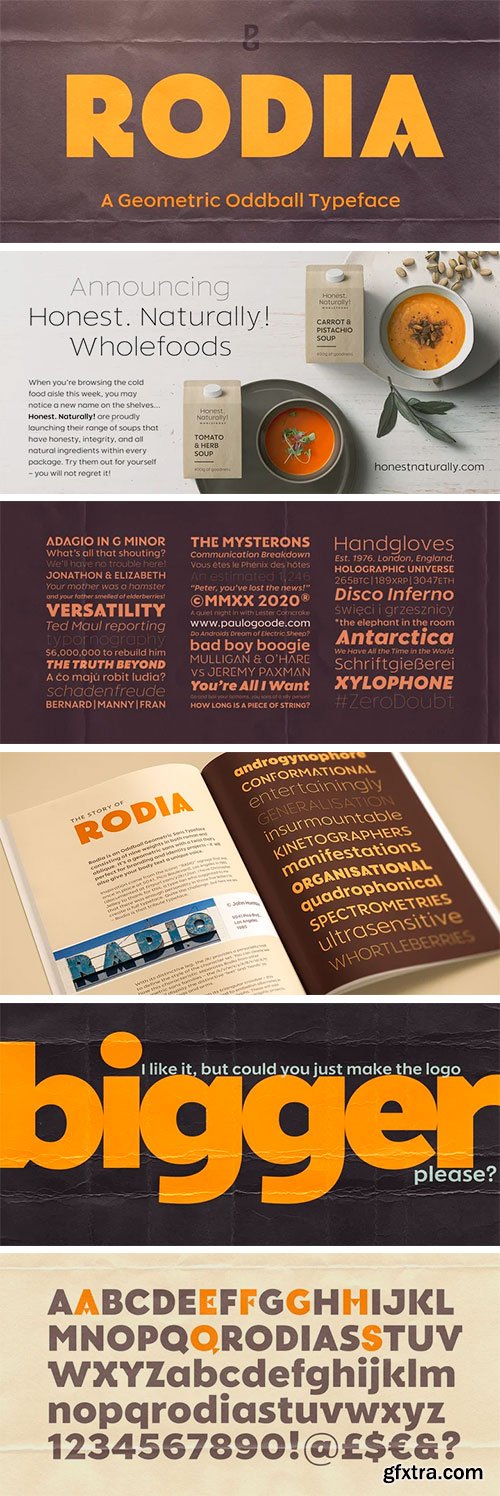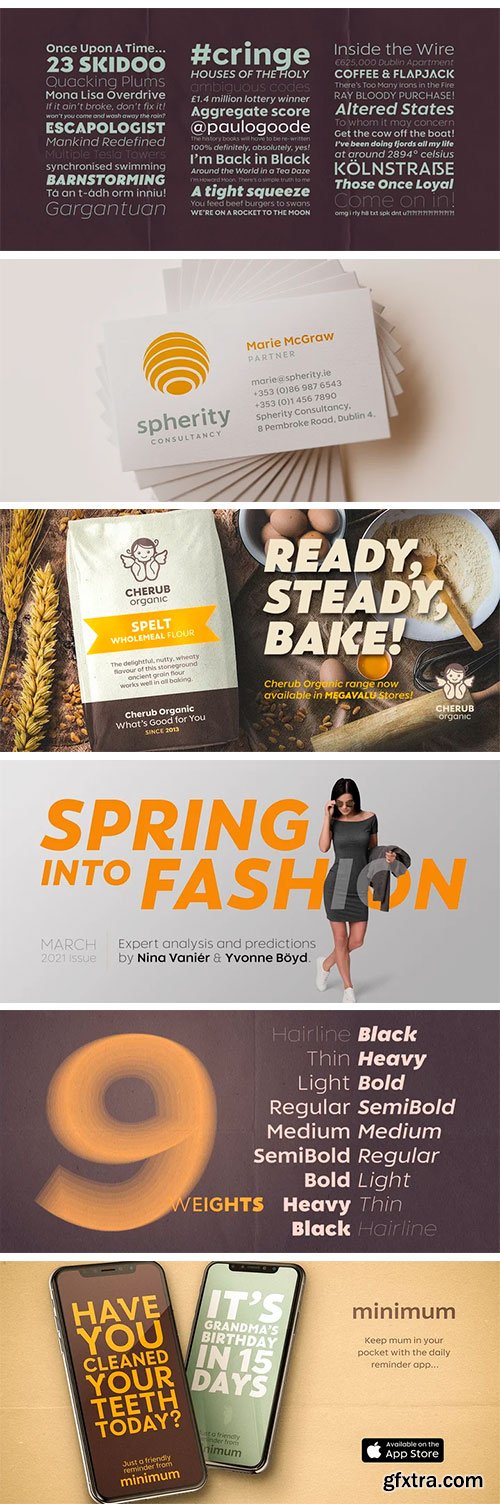
Rodia is an Oddball Geometric Sans Typeface consisting of nine weights in both roman and oblique. It’s a geometric sans with a twist that’s perfect for branding and identity projects – it will also give your body text a unique voice. Inspiration came from the iconic “RADIO” signage that was once in place at 5041, Pico Boulevard, Los Angeles in 1985 (documented at https://tinyurl.com/y2krt2ox).
With its distinctive leg, the /R/ provides a personality trait to define the style of the character set. You can clearly see how this characteristic separates Rodia from other geometric sans families – the /k/v/w/x/y/K/R/V/W/X/Y/ glyphs all display the distinctive ‘feet’ and ‘hands’ as terminals to legs and arms. Then there is the /A/ with its triangular crossbar – this triangular motif has been used to embellish alternates in Stylistic Set 1 for /A/E/F/G/H/Q/S/ glyphs. These will add another layer of versatility for your typographic projects. Rodia features an extensive character set covering all Latin European languages.